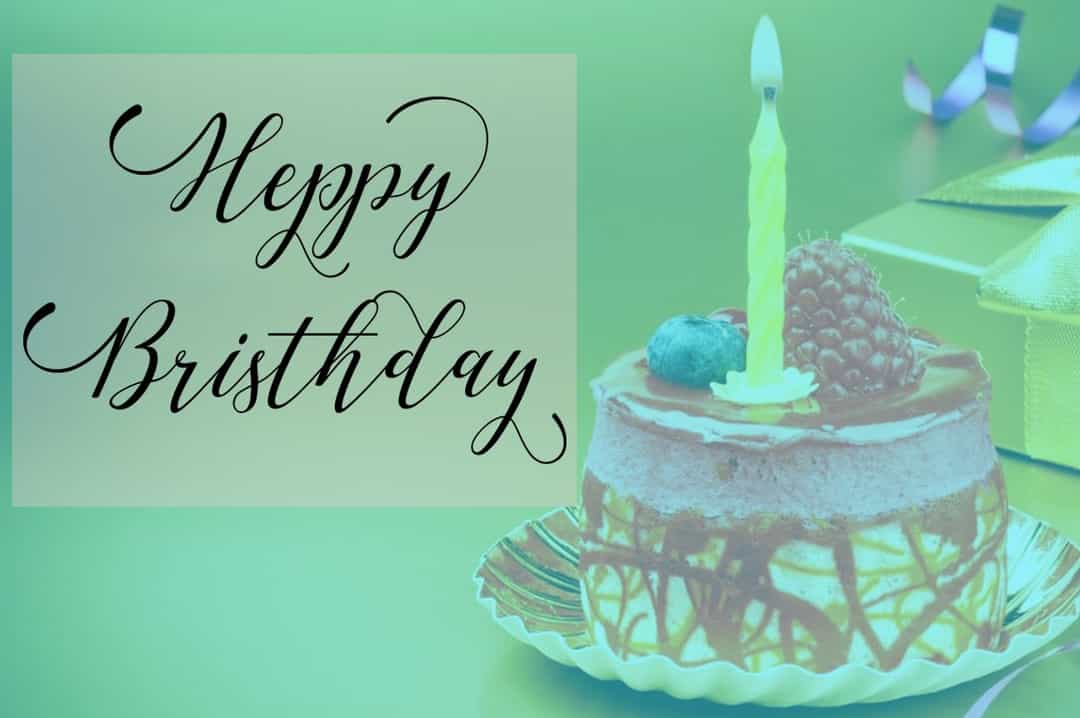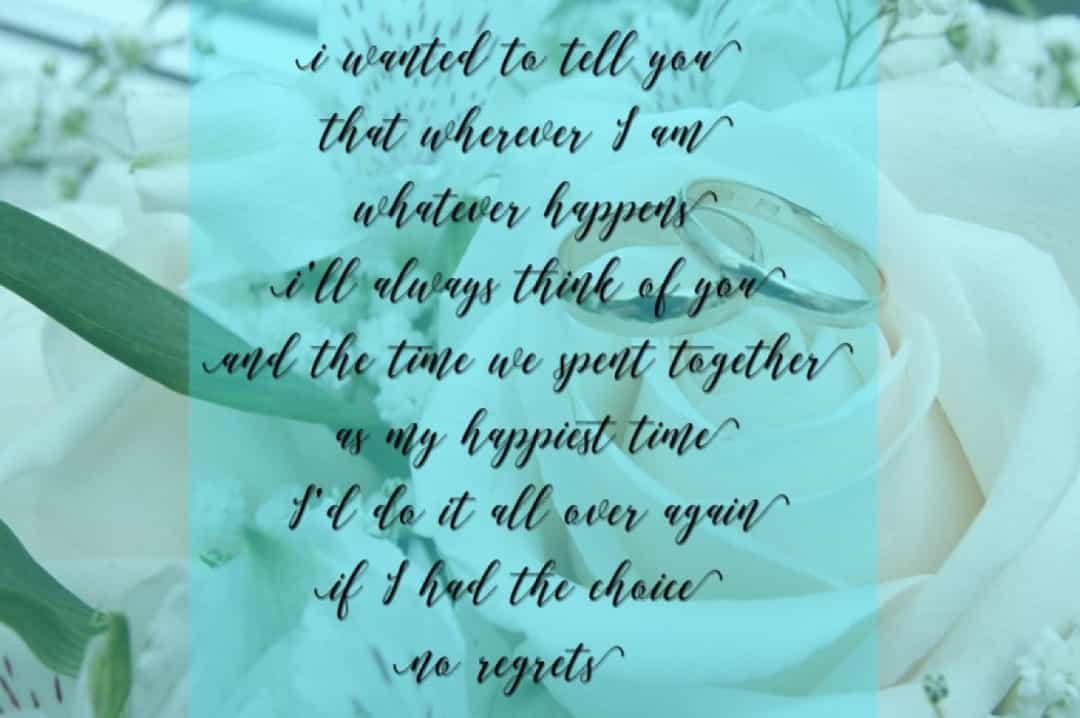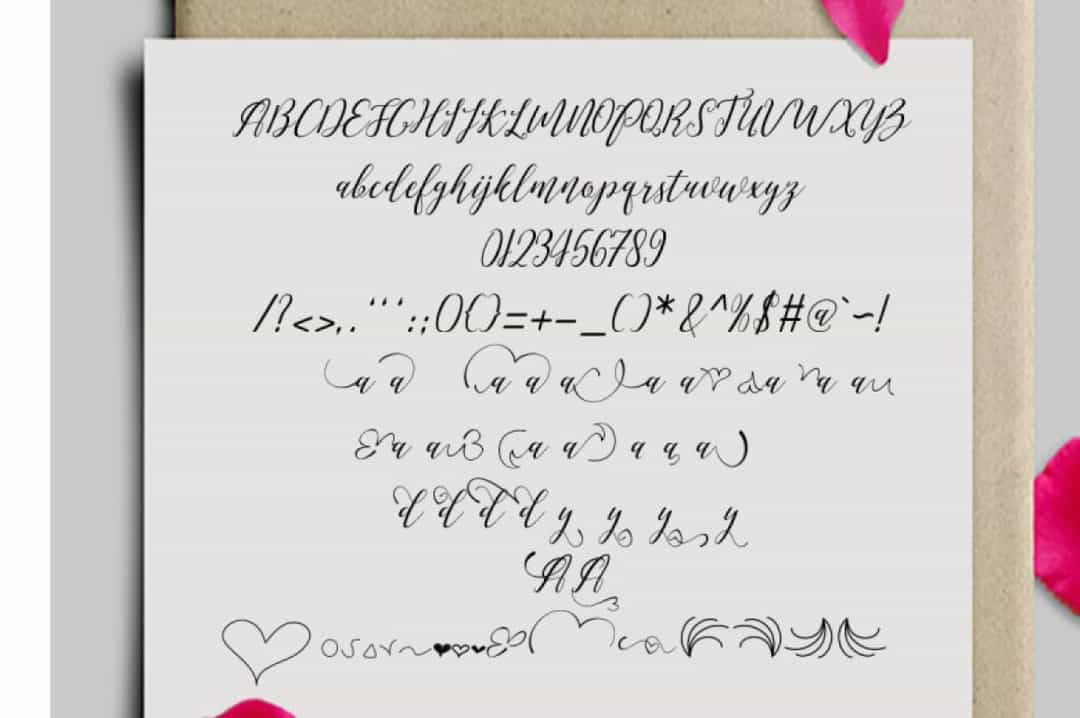
Introducing Love Malia Font. It is New: It is fresh and has a modern design with handmade calligraphy, decorative characters and dancing lineage! Such lovely ideas like greeting cards, branding material, business cards, quotes, posters, and so on are such a delight to get.